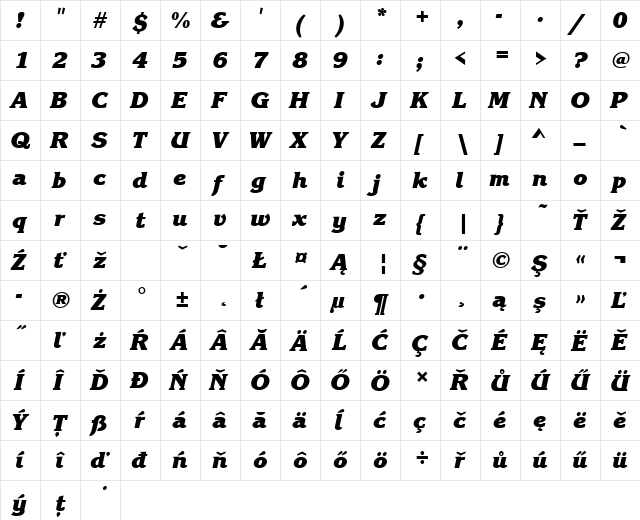
KorinnaItcTEEHea Italic Font Preview
KorinnaItcTEEHea Italic
Design Context for KorinnaItcTEEHea Typeface
KorinnaItcTEEHea offers clean, dependable letterforms without strong stylistic allegiance, making it a practical choice for designers who need flexibility. The dynamic lean of this cut emphasises speed and emphasis in any layout.